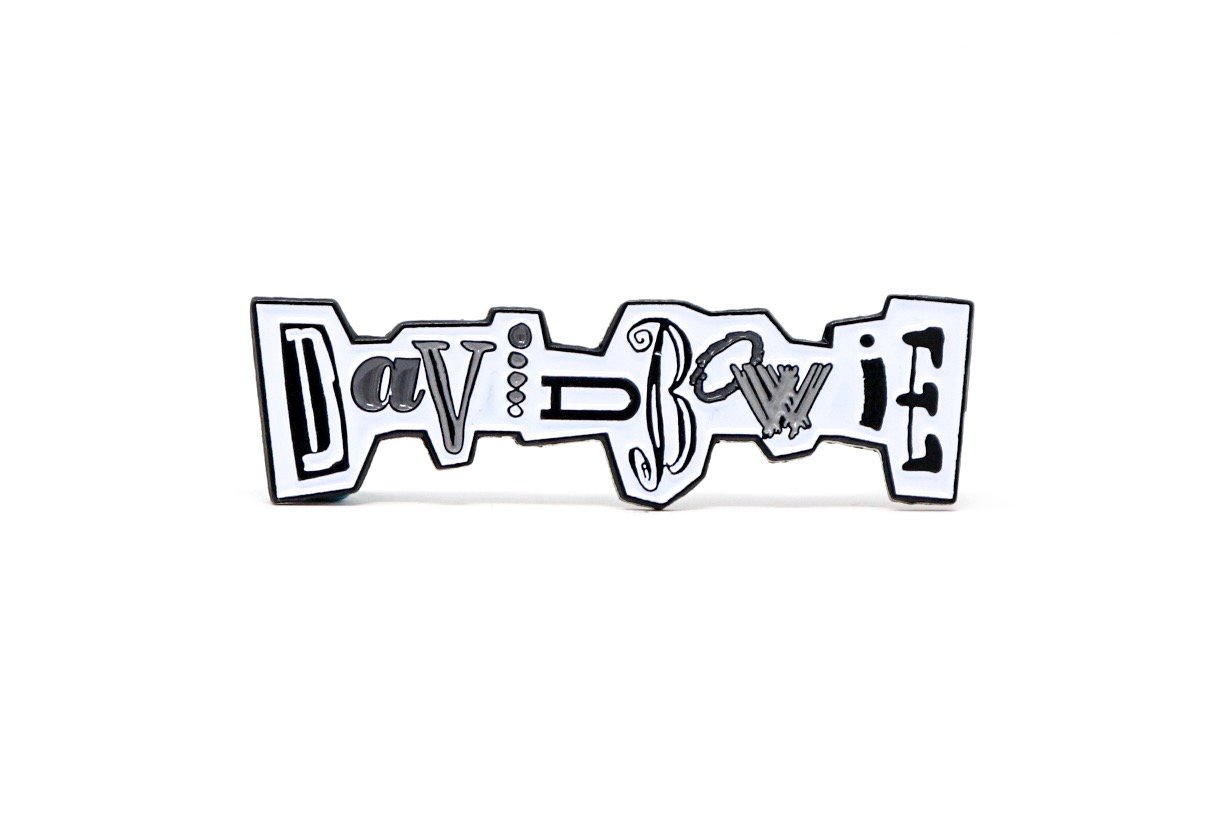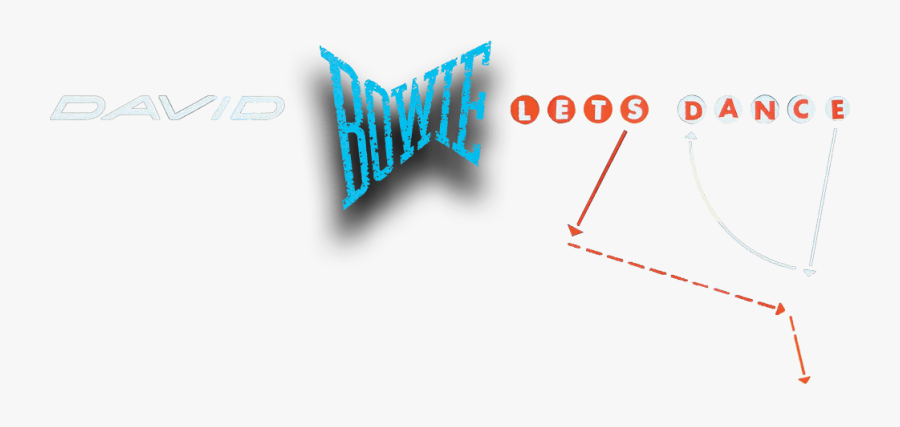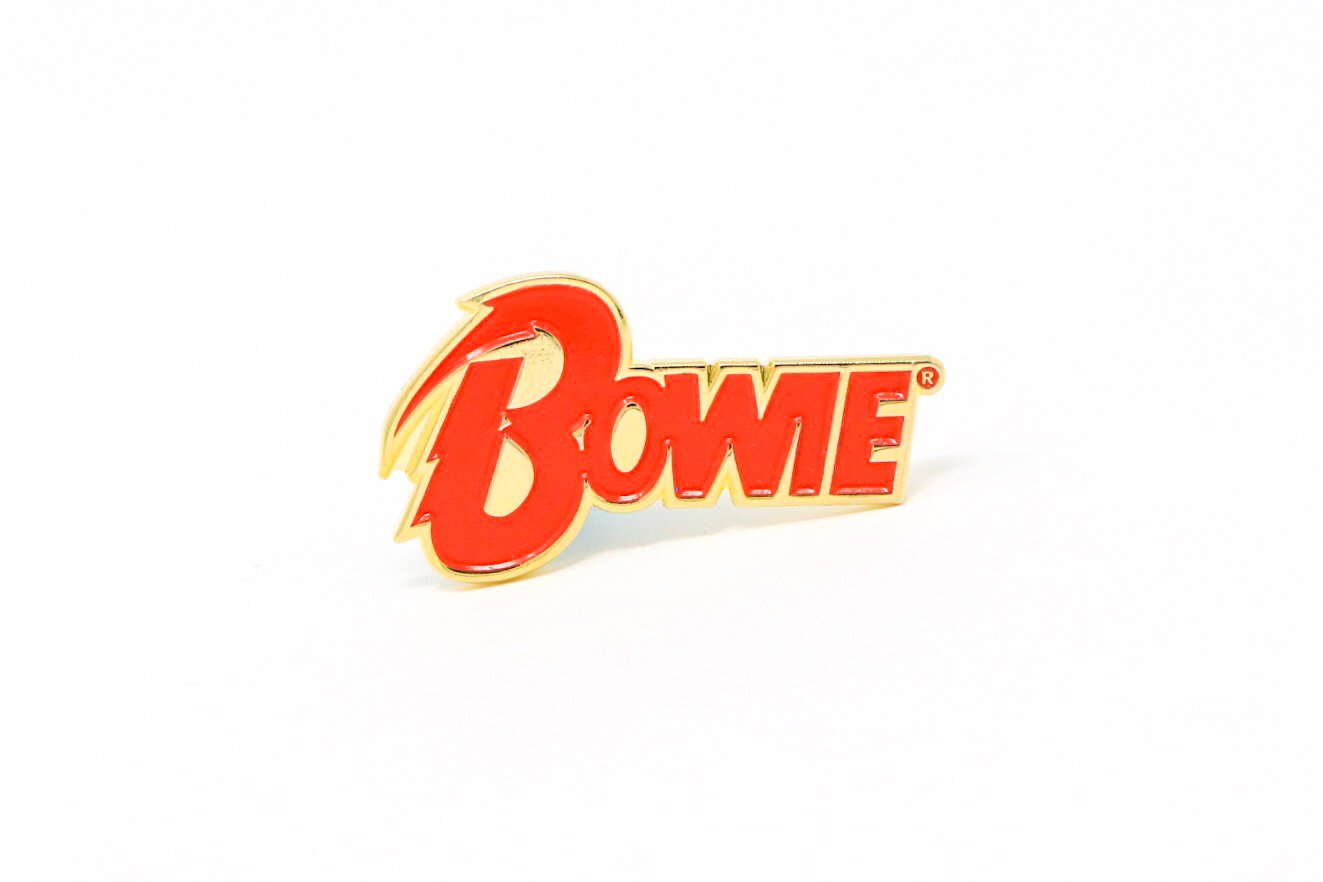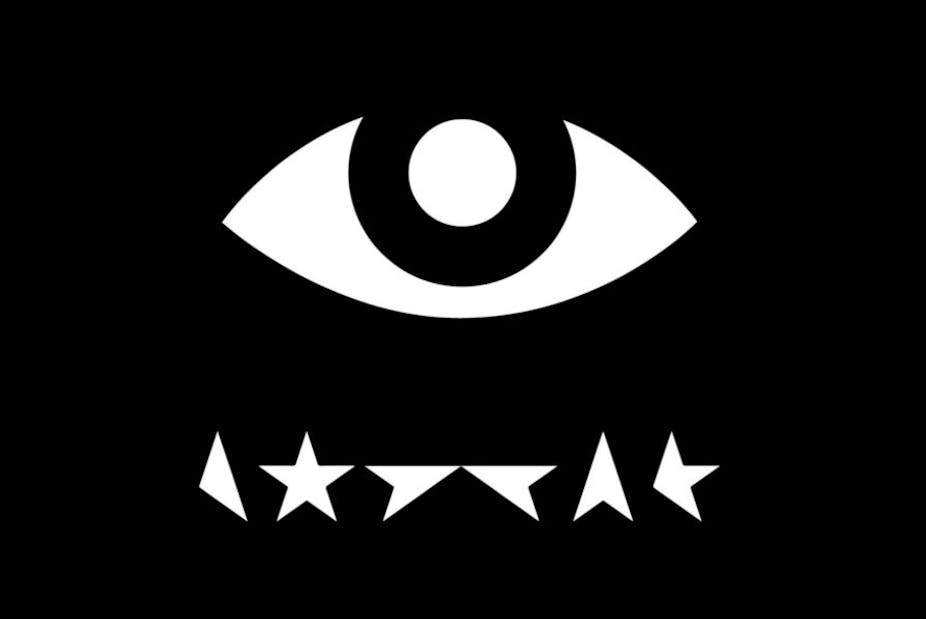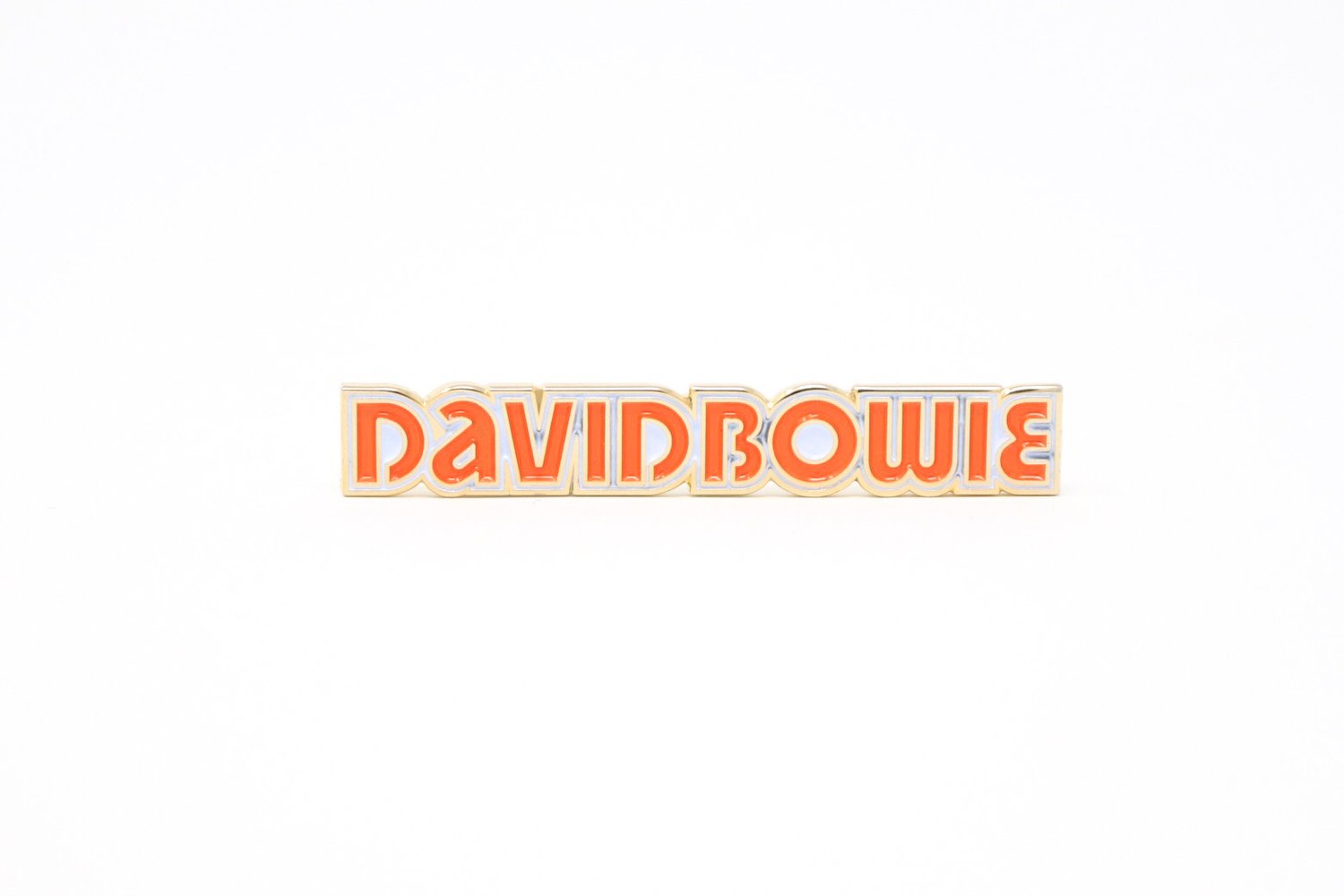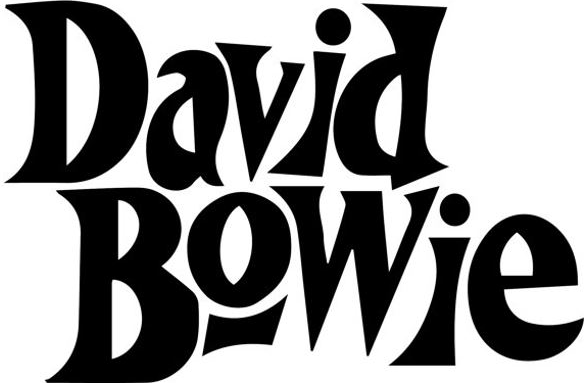
David Bowie Logo Font
Of course we immediately wondered what the rest of the font might look like so we decided to try making it.
David bowie logo font. Bowie is thenew font by bercz and latinotype team. He was now the thin white duke and had used the same trick the previous year for the cover of station to station which is also an image taken from the filmit shows bowie in his role as thomas jerome newton stepping into a space capsule. Esperanza daresiel demo baphomet tna bound for glory wanax demo tuscarora windshield massacre mario and luigi sonic mega font tna logo harry potter and the lara croft tomb raider tetris blocks split splat splodge silent hill. A website creatively named songwriters fonts hosts free typefaces modelled after legendary musicians.
So far these include the scrawls of kurt cobain david bowie john lennon leonard cohen. Bowie moving into acting only served to make his image even more fluid. The cover image of low is a still taken from the film the man who fell to earth. The official logo of the late english musician david robert bowie jones.
The typeface is a type system that reflects a strong personality an urban feel and an unprejudiced style. The other day i stared at bowies blackstar album cover for a while before mentioning to my partner that the glyphs across the bottom looked like they were some kind of code. Bowieis well suited for publishing projects branding and packaging. Deped fonts 2536 debut fonts 2537 davida fonts 2549 dv dotted fonts 2573 david bowie fonts 2775.
French designers nicolas damiens and julien sens used handwritten letters by david bowie john lennon kurt cobain leonard cohen and serge gainsbourg to create a typeface series called songwriter fonts. Contributed by felix nic. Examples of fonts in use tagged with david bowie pelo magazine logo and covers 19702001 c.